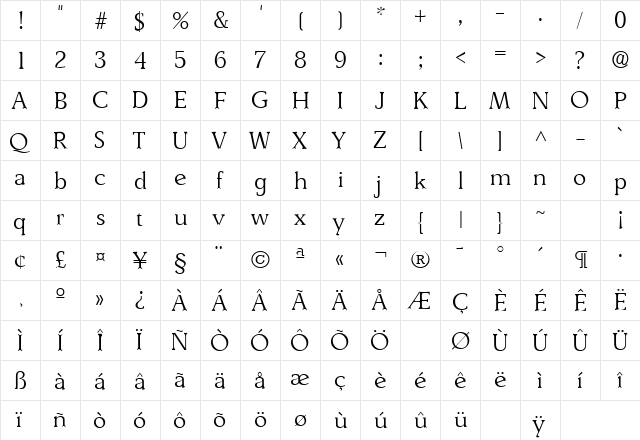
DerringerLH Regular
Design Context for DerringerLH Typeface
DerringerLH offers clean, dependable letterforms without strong stylistic allegiance, making it a practical choice for designers who need flexibility.